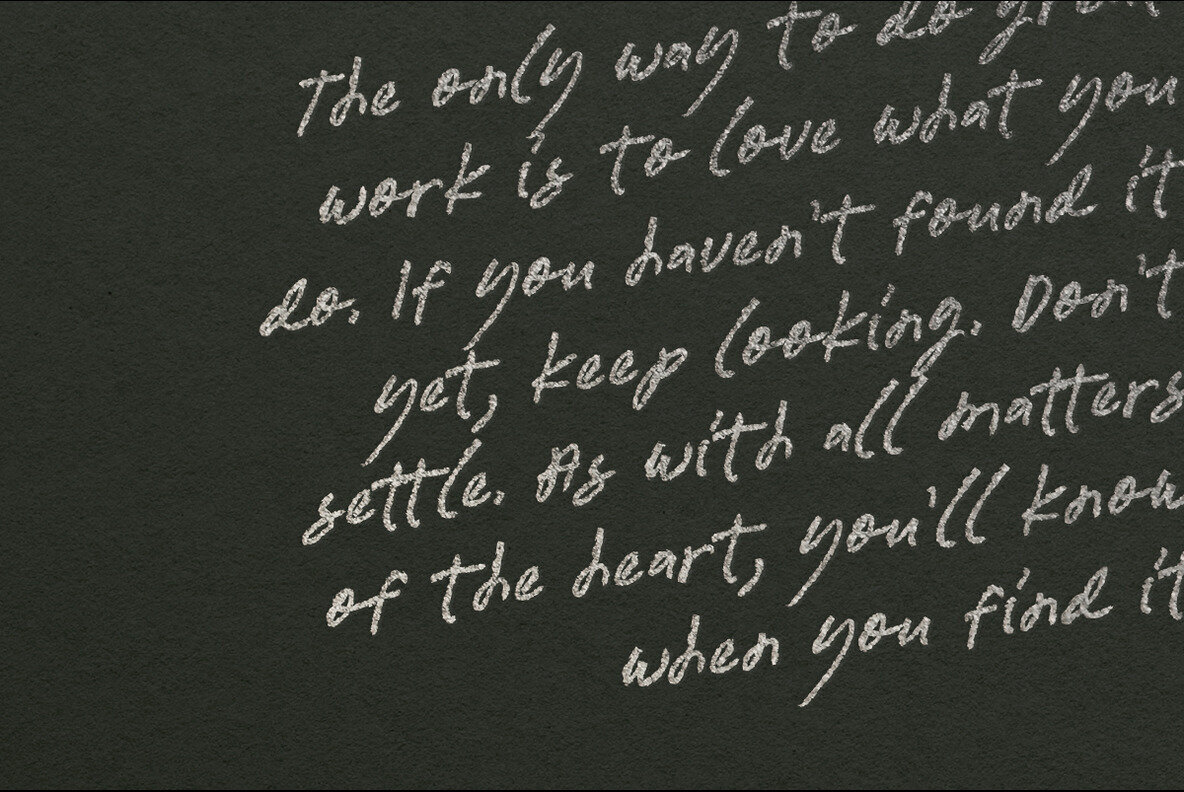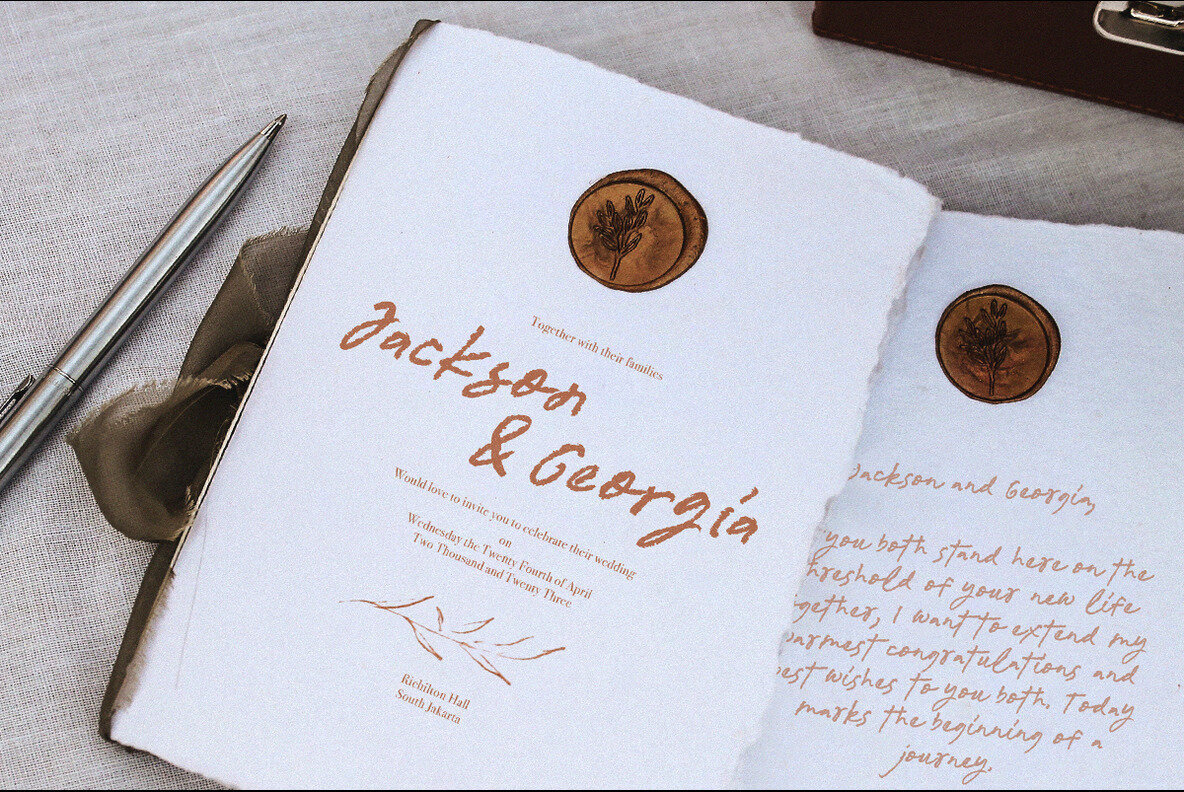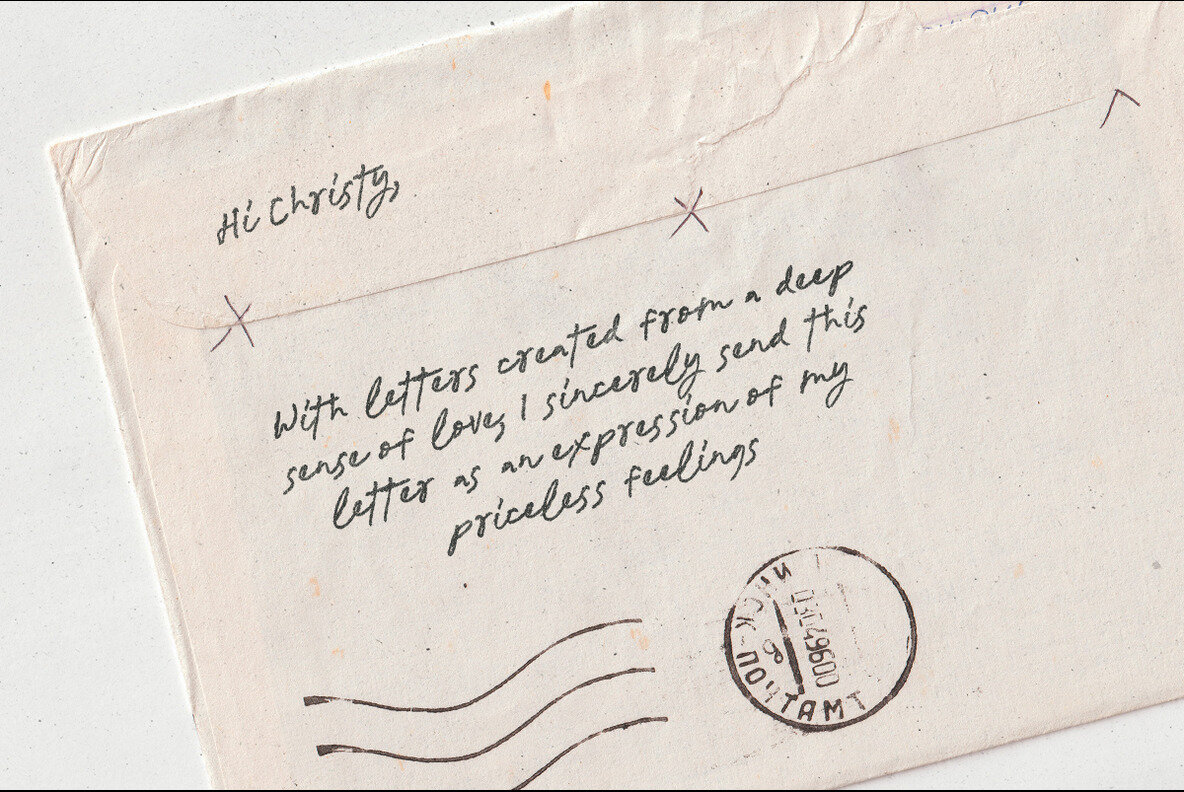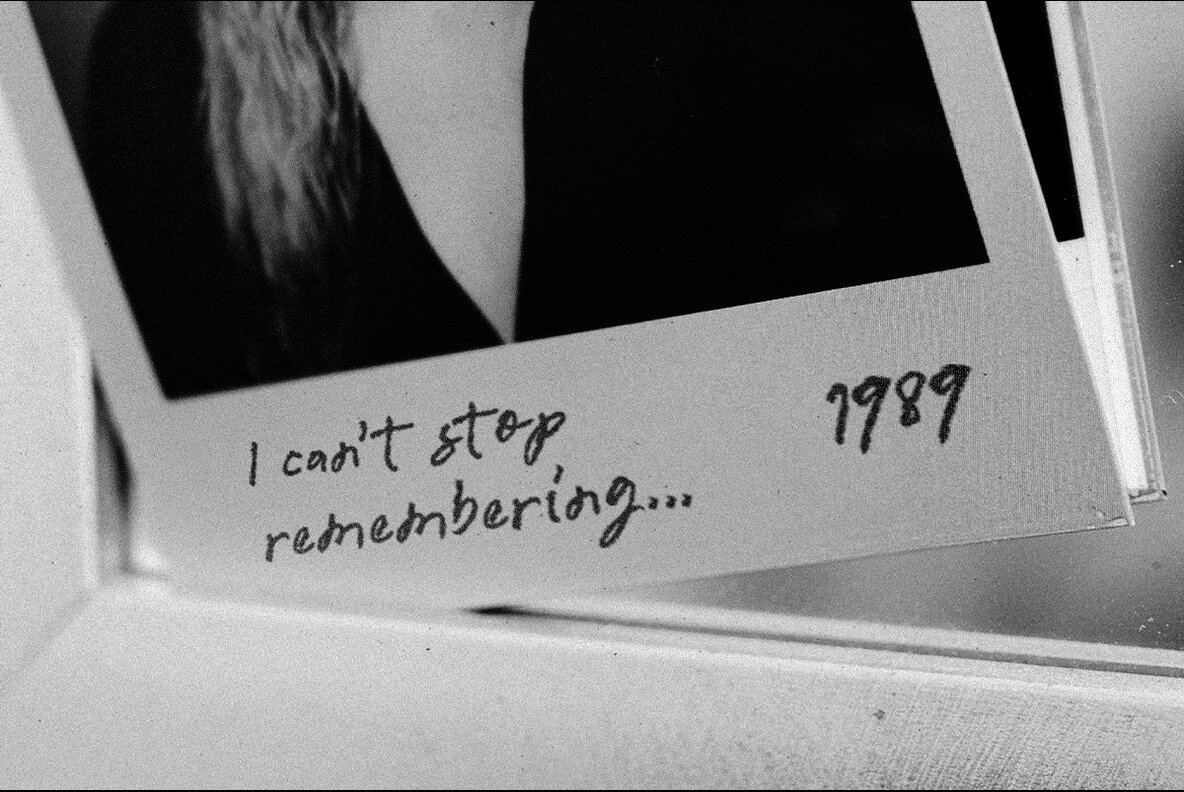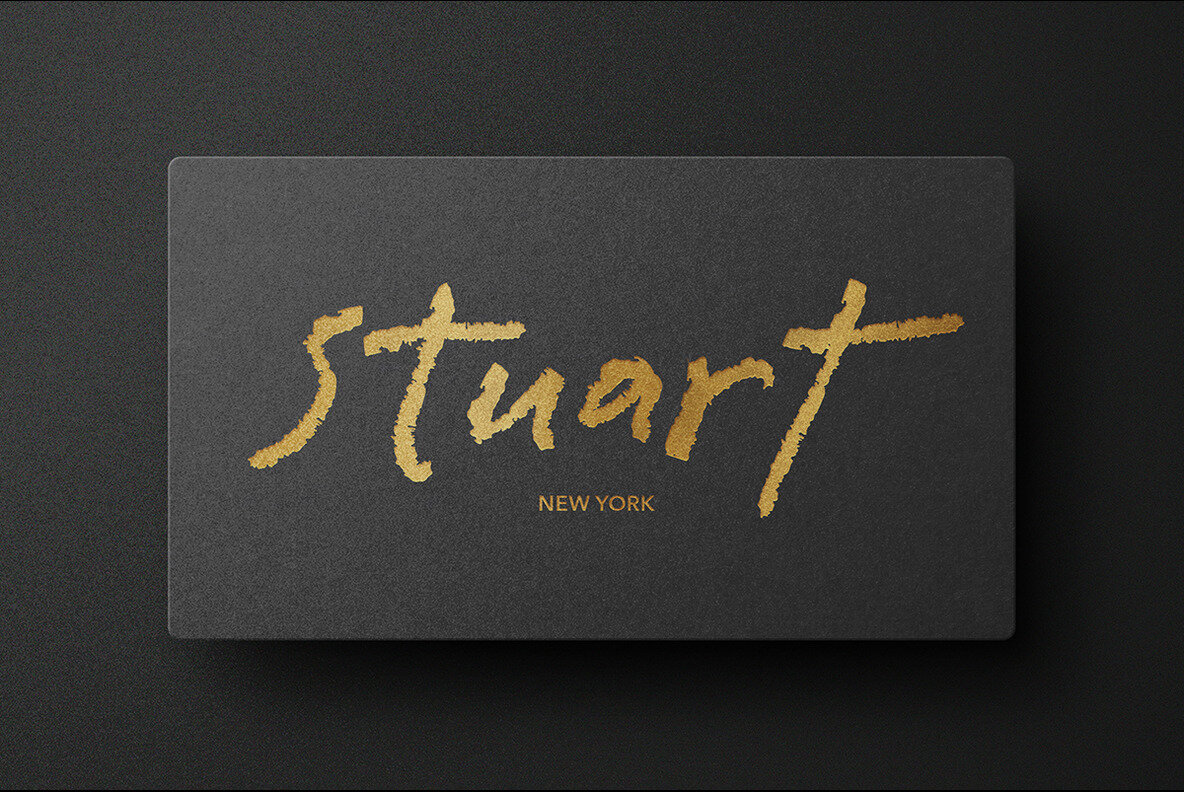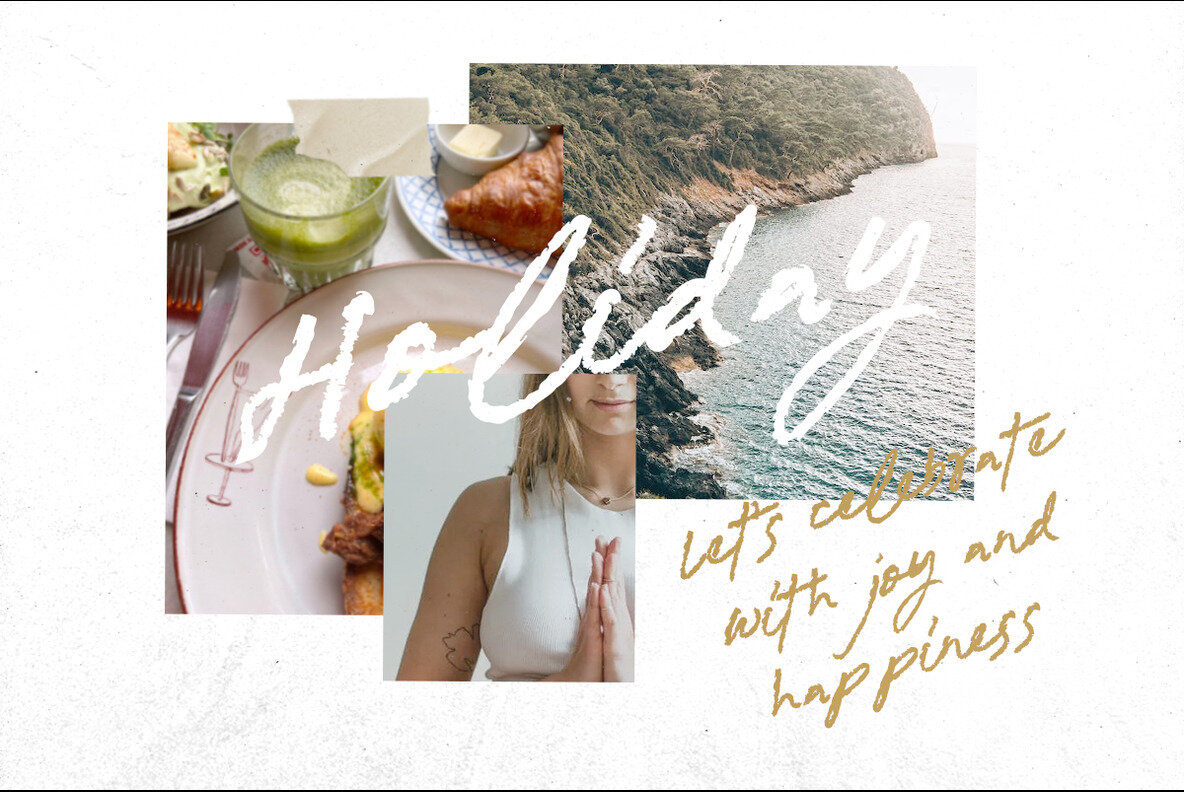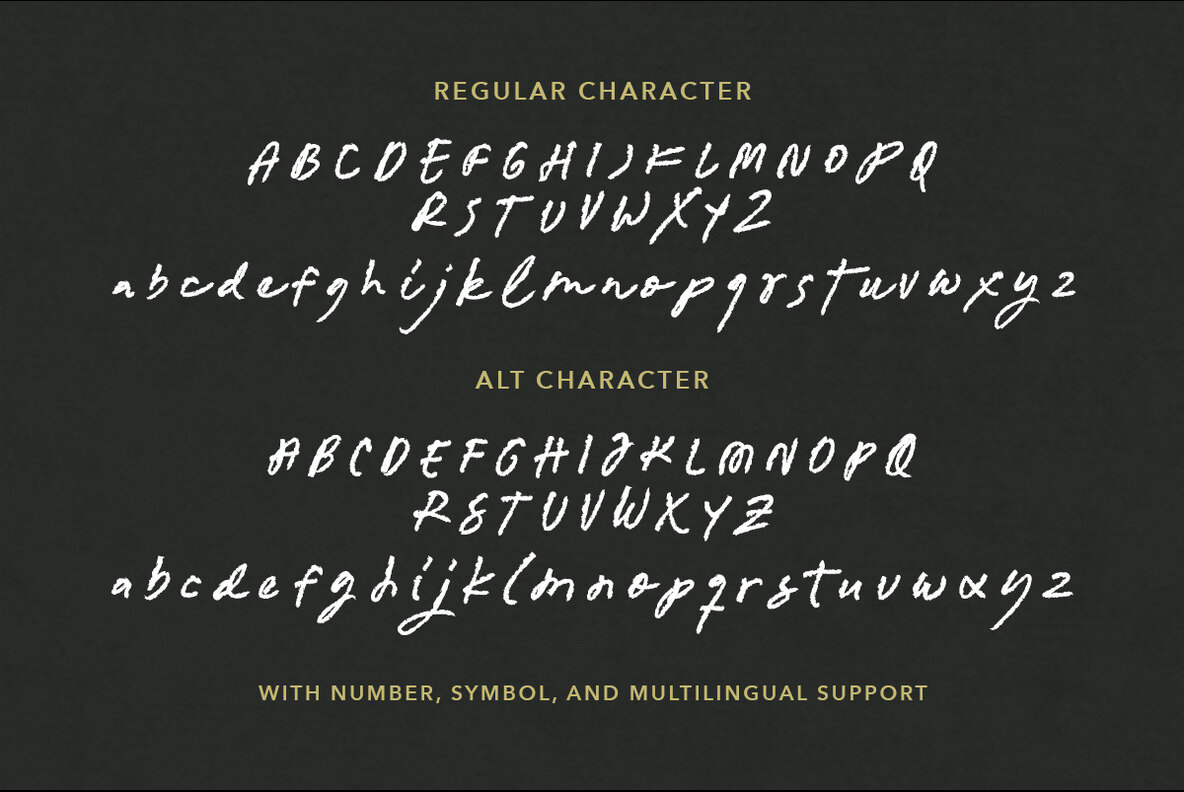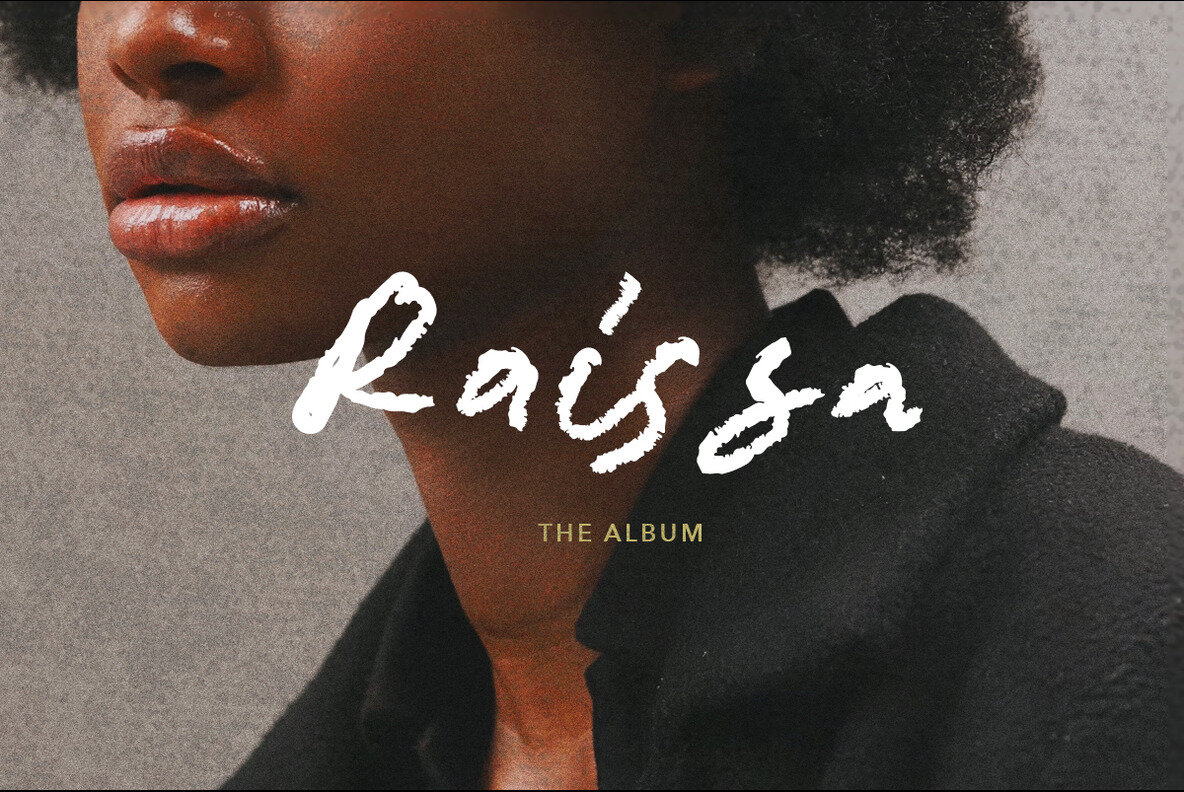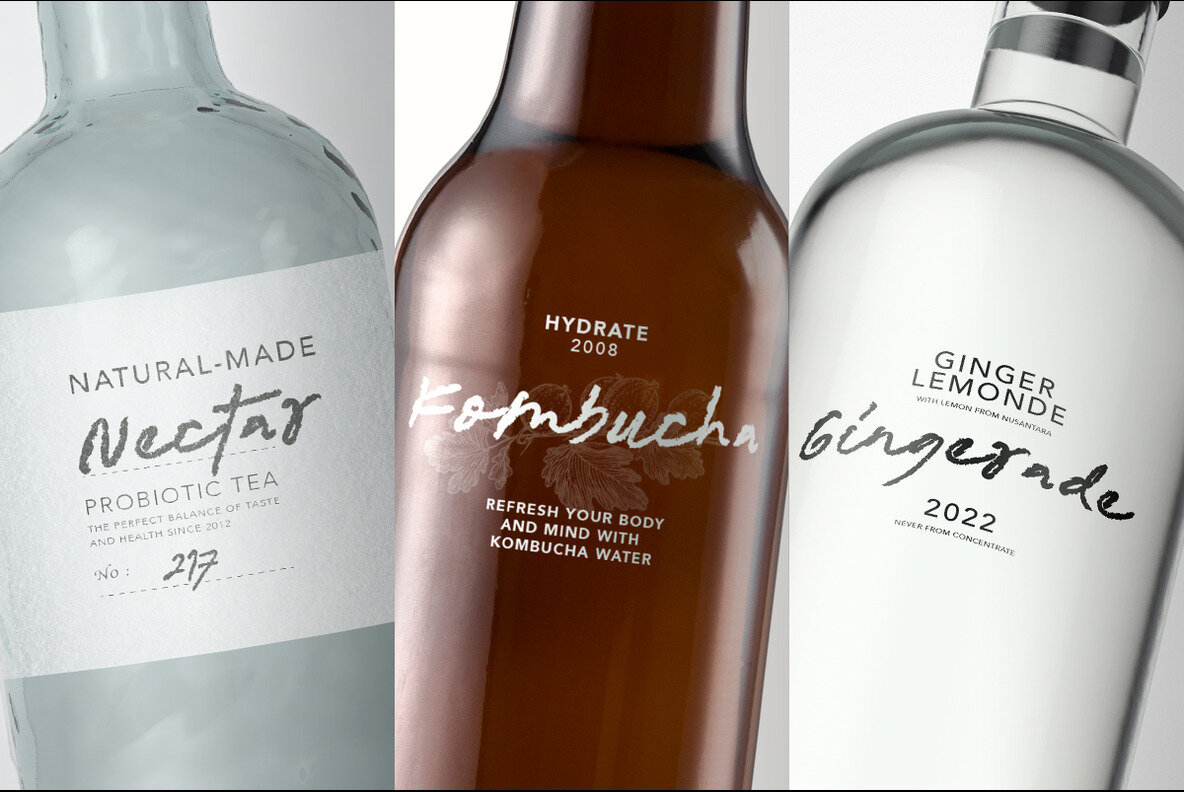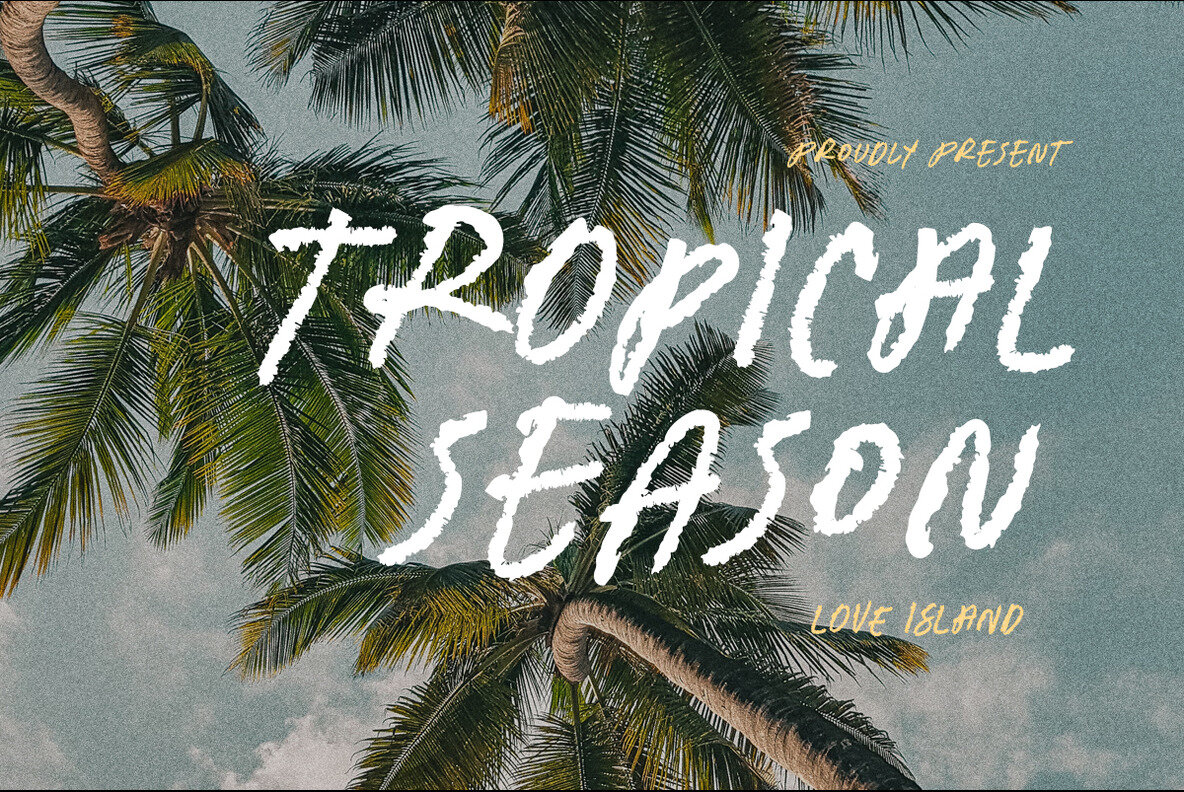
Periphery Font
Periphery Regular
Periphery Alt
Periphery is a charming and organic typeface that captures the essence of imperfect, hand-drawn lettering. It exudes a sense of authenticity and personality, mimicking the irregularities and rough textures of a manual writing style. This font showcases a delightful combination of jagged edges, uneven strokes, and varying line weights, lending it a raw and rustic appearance. With an alternate set of characters, You can swap out specific letters or even entire words to achieve a more customized and handcrafted look in your typography. It works well in designs that aim to evoke a sense of nostalgia, authenticity, or an organic feel. Whether used for posters, packaging, branding, or any other creative endeavor, this font adds a unique and eye-catching touch, infusing the text with a distinct handmade quality. This font also support multi language!